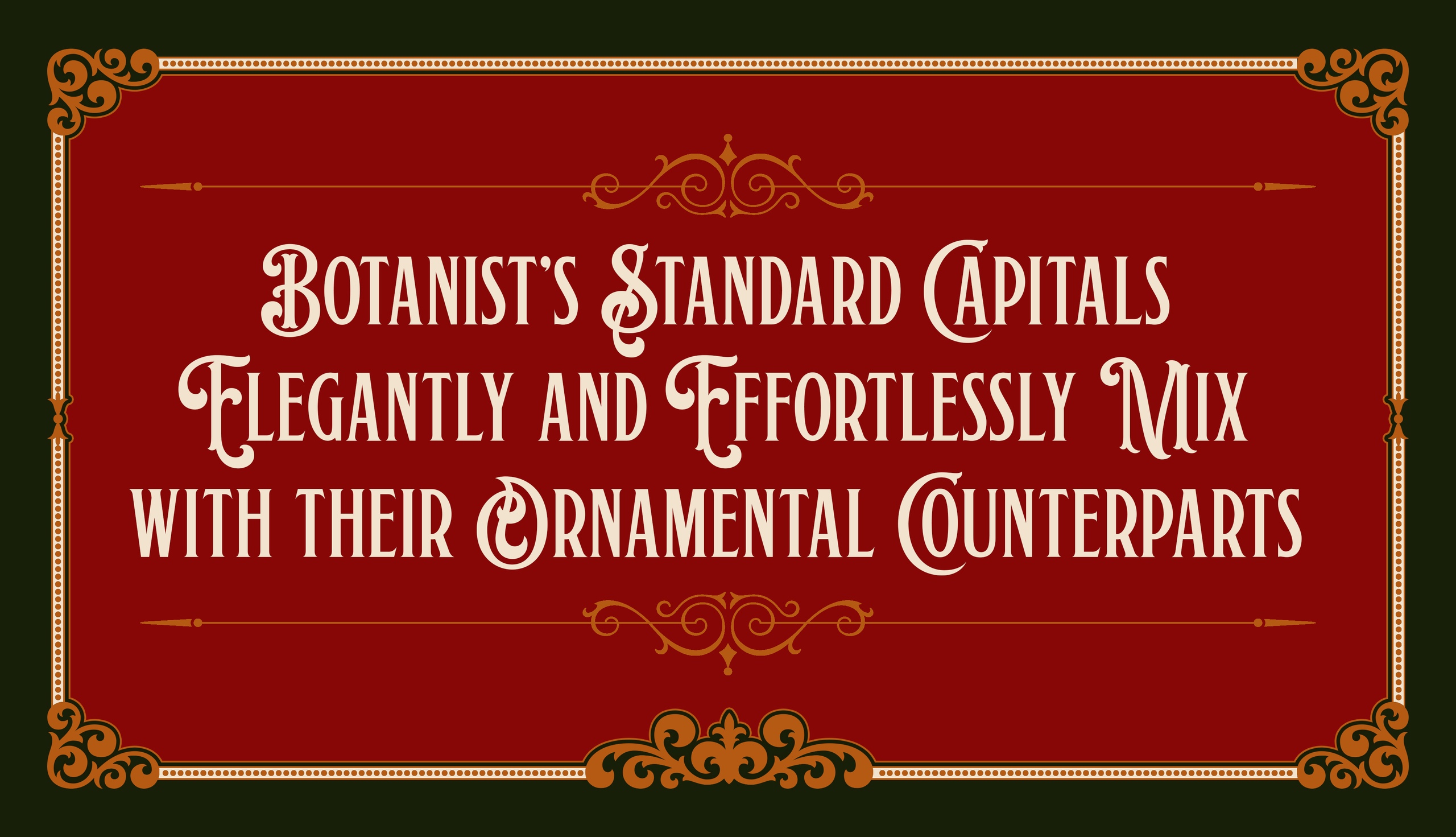
Botanist Font
This organic typeface is perfect for botanical garden signage, natural skincare branding, herbal medicine packaging, eco-friendly product labels, plant nursery materials, sustainable lifestyle marketing, nature conservation campaigns, and organic food restaurant menus. Botanist Font delivers natural sophistication in applications where botanical authenticity and environmental consciousness are essential for connecting with eco-minded audiences who value sustainable living and natural wellness approaches.
What makes Botanist Font so exciting is its masterful interpretation of botanical elegance and natural growth patterns through organic typography. The font features gracefully curved letterforms with subtle plant-inspired details that suggest leaves, stems, and natural flourishes. Each character has been thoughtfully designed to evoke the harmony of nature while maintaining excellent readability across various environmental and wellness applications. The typeface's organic personality creates immediate associations with natural health and sustainable living, making it perfect for brands committed to environmental stewardship and holistic wellness through their visual identity.
The Botanist Font includes nature-inspired style variations: Regular, Bold, Light, and Ornamental versions. This organic collection allows designers to create natural compositions and establish earth-friendly typographic treatments that capture the essence of botanical beauty and environmental harmony. Each style maintains the font's inherent naturalness while providing different emphasis levels for various eco-conscious applications and sustainable design themes.
This authentic natural typeface represents the perfect solution for designers who understand the power of botanical inspiration in creating meaningful connections with environmentally aware audiences and nature-loving communities.